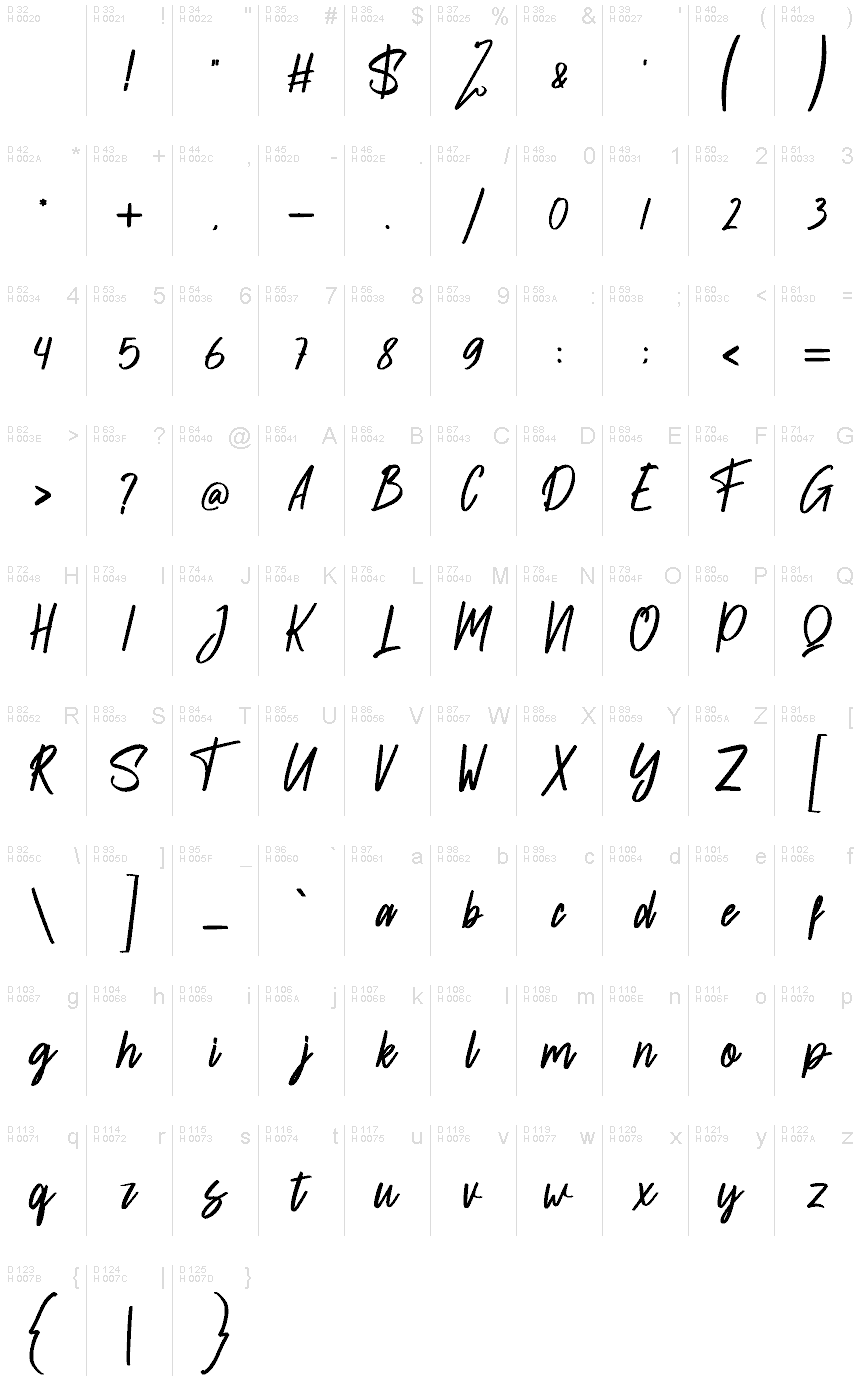
Sallith
Sallith font by Skiiller Studio is a handwritten font whose expressive style is flowing with elegance and a unique personality. Cursive letters are finally stylish, modern, and tasteful, giving whichever surface they’d been used on a beautiful aesthetic leaning toward luxuriousness.
Use the weekend at Sallith to design brand logos for fashion stores and boutique apparel, or stationery items including business cards. It can also be used to decorate posters, printed or digital ads, social media posts and banners, magazines covers and pages focusing on editorials for fashion shows and designers’ portfolios.